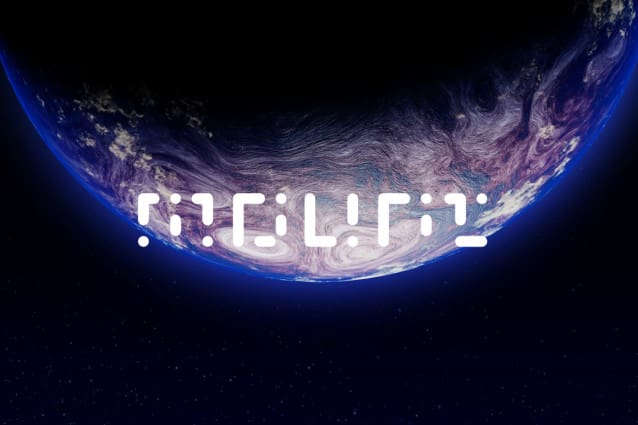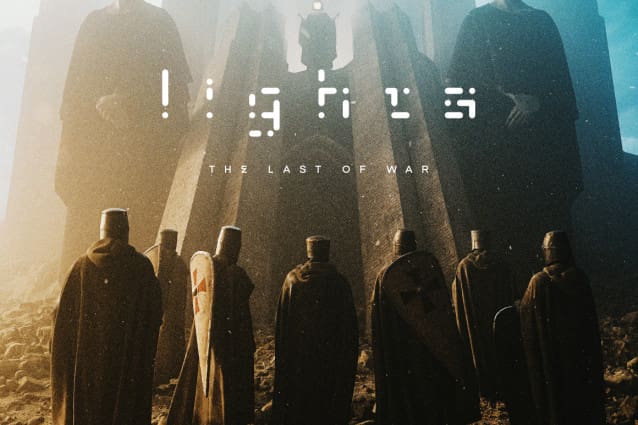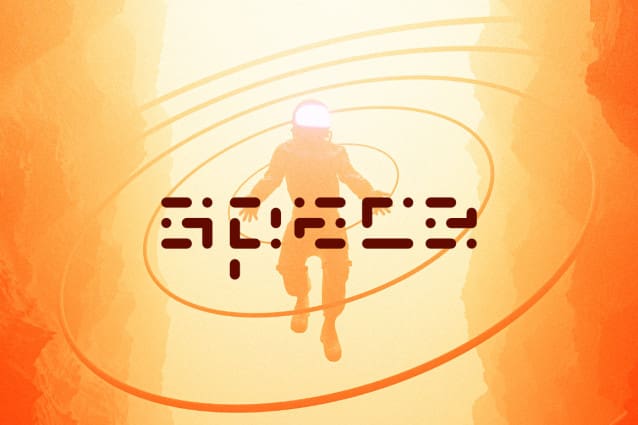
GROUTPIX ROUNDED FONT
GROUTPIX ROUNDED FONT, speaks the language of innovation and beats to the rhythm of creativity. Embrace the future of design, where pixels become the building blocks of sonic landscapes, and every character is a pixelated note in the symphony of techno artistry. Elevate your designs, amplify your visuals, and let the techno revolution begin